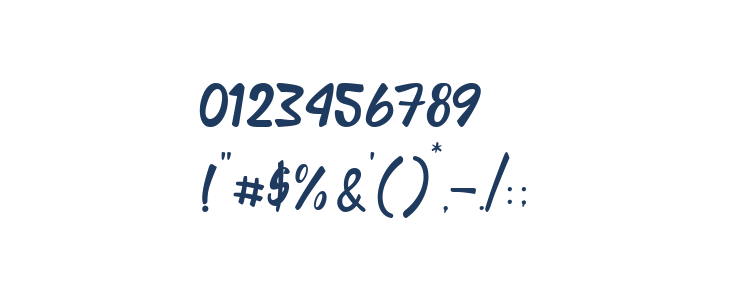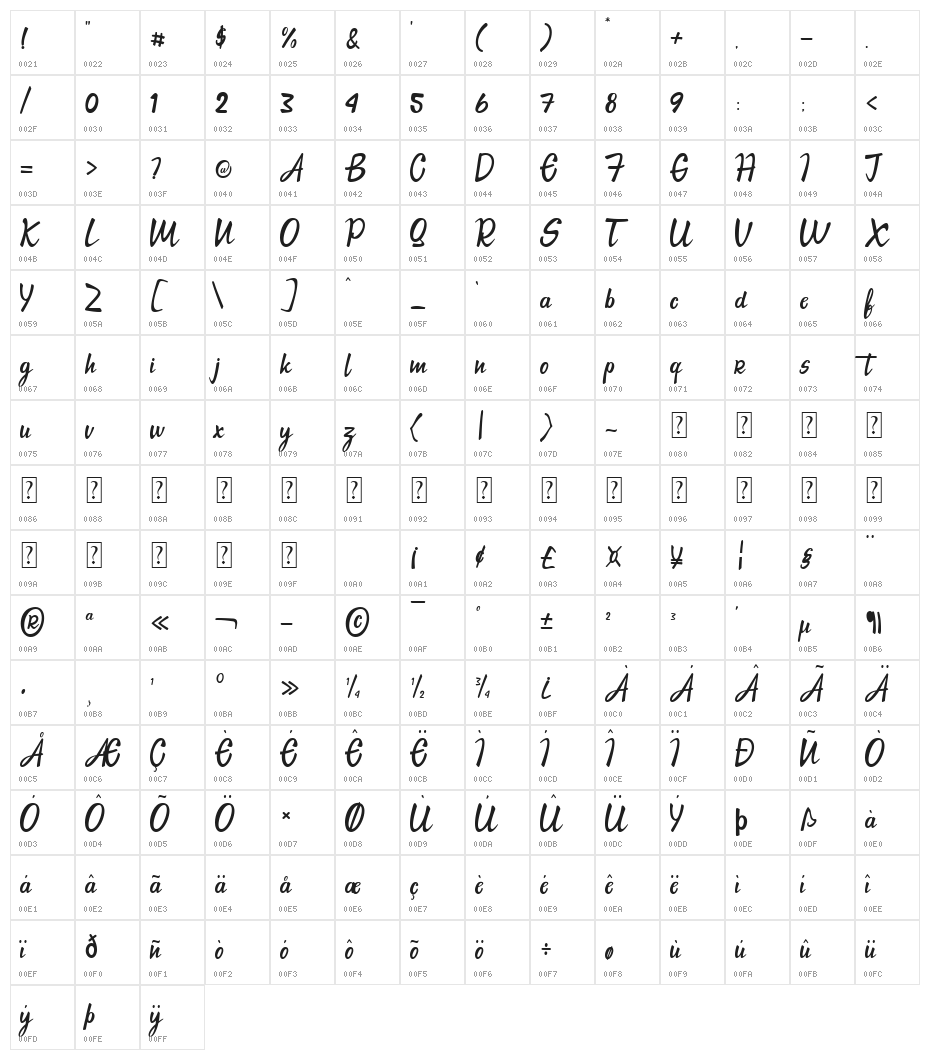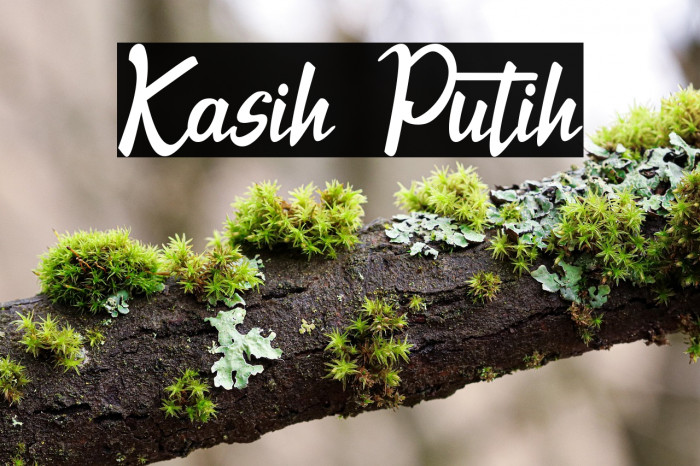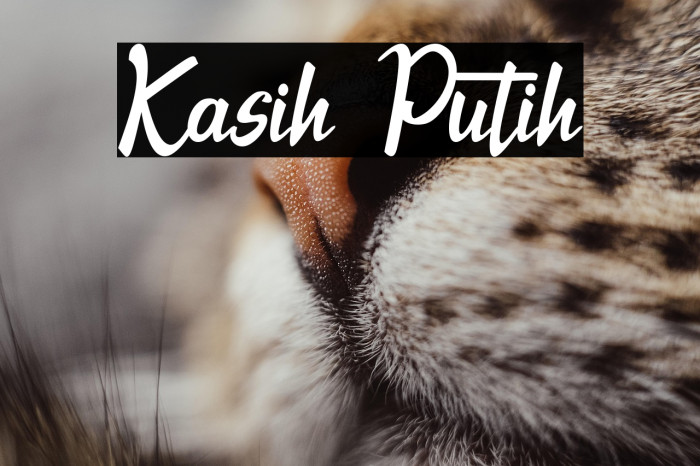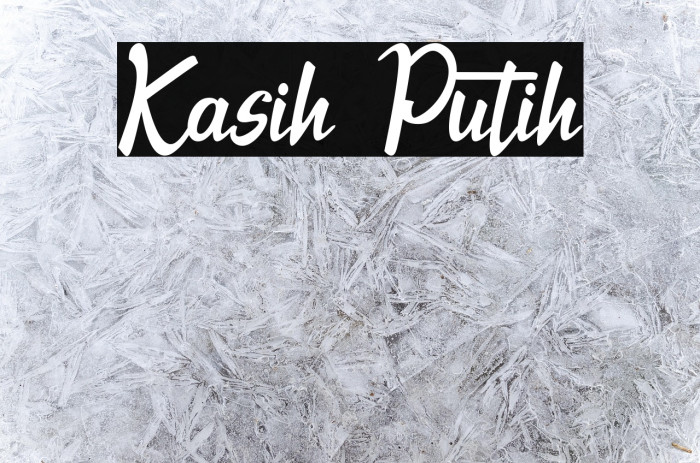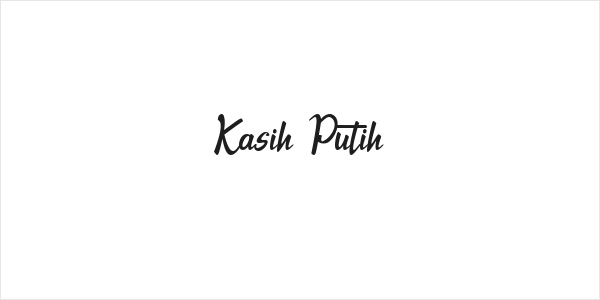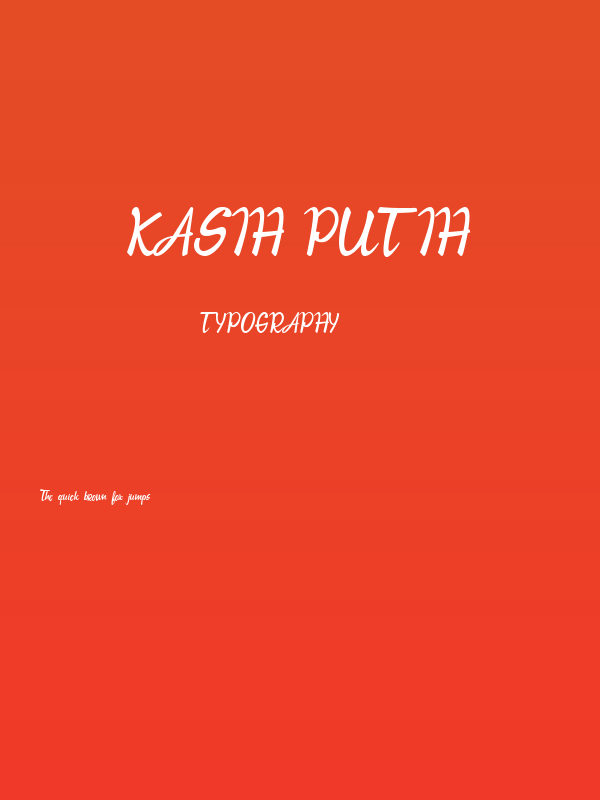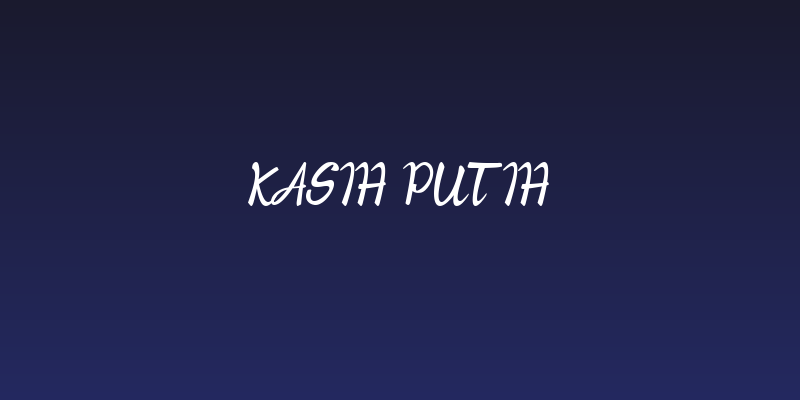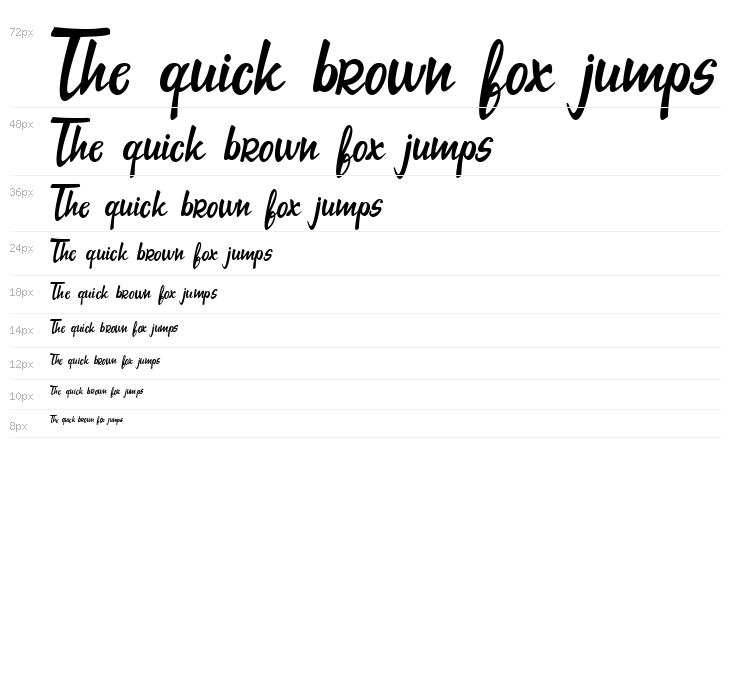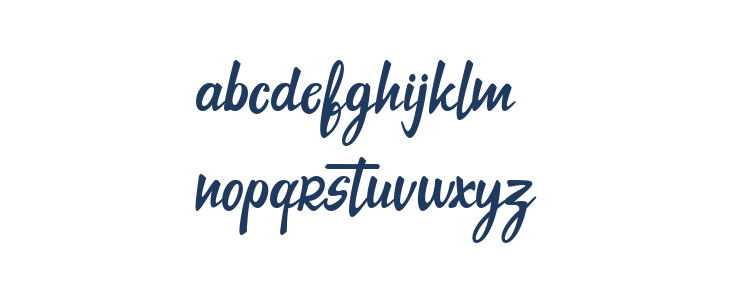
Kasih Putih Font
Kasih Putih Description
This font features a dynamic and flowing script style, characterized by its smooth, cursive letterforms that convey a sense of elegance and movement. The uppercase letters are bold and slightly slanted, giving a sense of forward motion, while the lowercase letters maintain a consistent rhythm with their connected strokes. The numerals are clear and legible, matching the overall style of the alphabet. Special characters are integrated seamlessly, maintaining the fluidity of the script. This font is ideal for projects that require a personal, handwritten touch, offering both sophistication and readability.